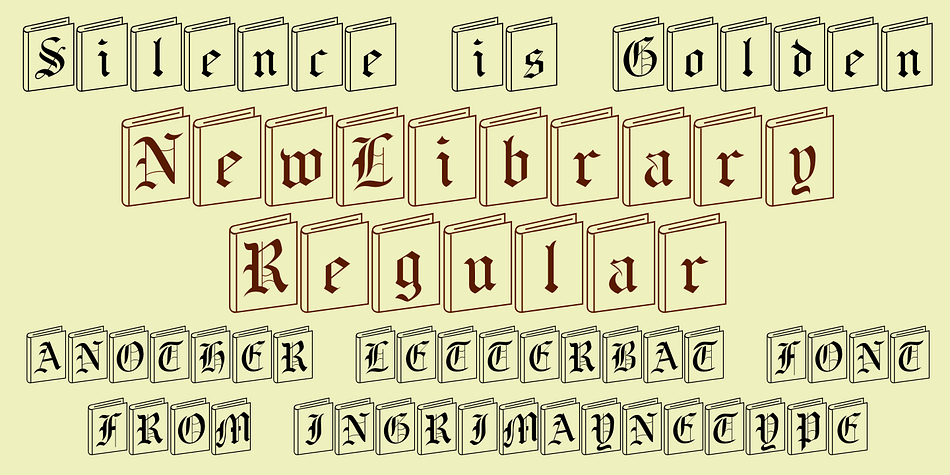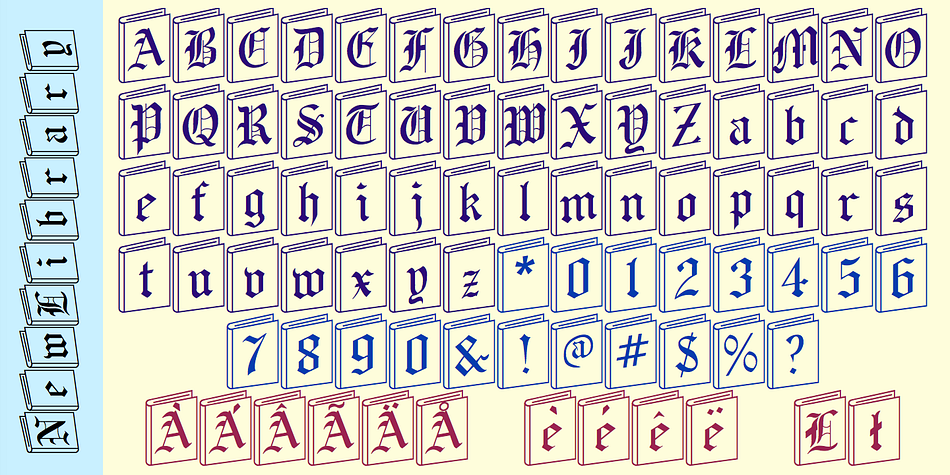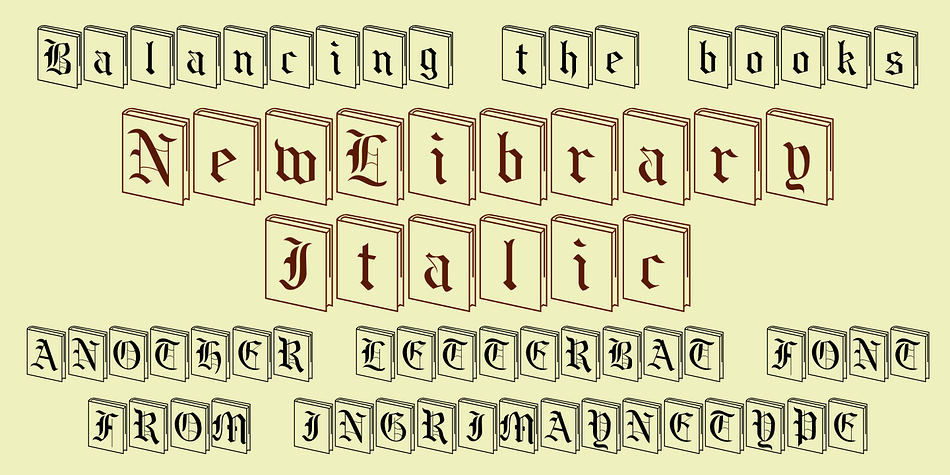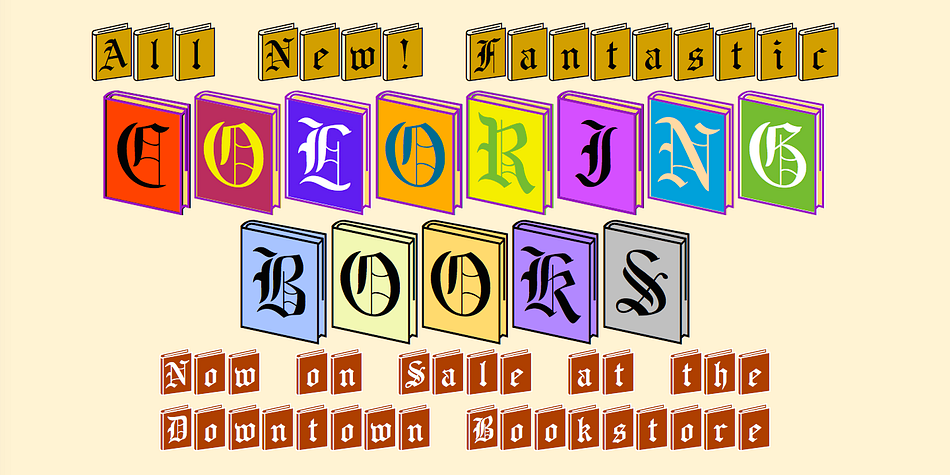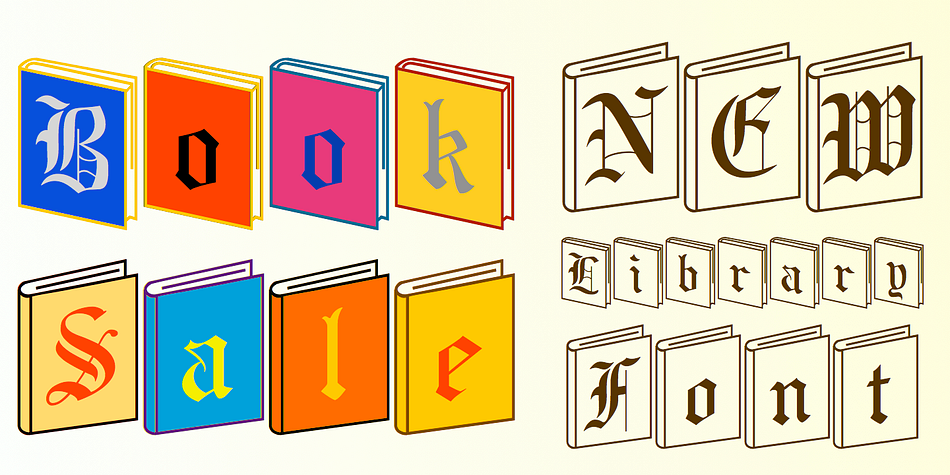
Designed by Robert Schenk, NewLibrary is a blackletter, monograms and novelty font family. This typeface has two styles and was published by Ingrimayne Type.
In NewLibrary the letters are on books, not in them. (The letters are from the typeface BeneScriptine).
The NewLibrary fonts have characters with blank books, both solid and outlined, that can increase coloring possibilities. Instructions on how to form the layers or alternatively to get the effects with a string of characters, some with zero width, are given in the pdf file that comes with this font.